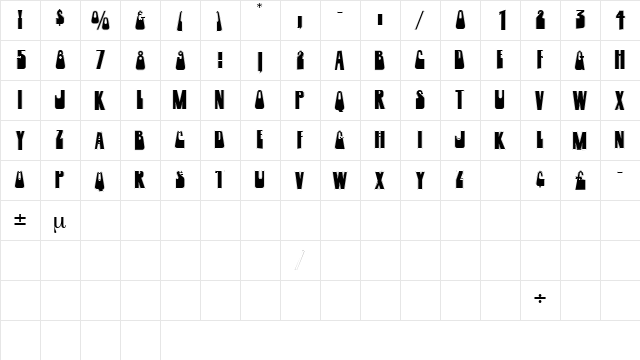
WoogieDisplayOutlineCapsSSK Regular
Design Context for WoogieDisplayOutlineCapsSSK Typeface
WoogieDisplayOutlineCapsSSK is built around its visual character rather than neutral utility — its distinctive forms are designed to make an impression at display sizes.
Font Pairing: Pair with a clean neutral sans-serif for body copy to let WoogieDisplayOutlineCapsSSK's character lead without overwhelming the composition.
Pro Tip: Use WoogieDisplayOutlineCapsSSK exclusively at display sizes — it was designed to be seen, not read at length. Let a neutral companion handle body copy.